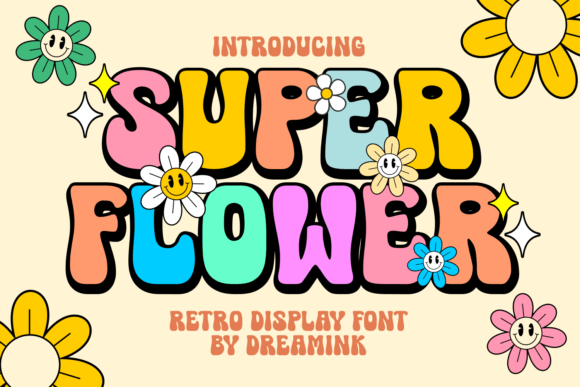
Introducing Super Flower Font, the ultimate choice for those seeking the best fonts for quotes! Created by the renowned Dreamink at 7ntypes, this captivating retro display font will transport you back to the golden era of vintage design. With its charming and playful curves, Super Flower Font exudes a sense of nostalgia and captures the essence of groovy styles from the past.
Super Flower Font stands out from the crowd with its bold lines and unique character. It brings a touch of whimsy to any project, injecting a dash of retro flair that is sure to catch the eye. Whether you're designing posters, crafting unforgettable logos, or creating creative headings, this font will elevate your work to new levels of creativity and originality.
Imagine the impact of Super Flower Font on your next project. Its captivating presence will effortlessly draw attention and leave a lasting impression. The curves and lines of this font create a harmonious blend of elegance and playfulness, making it perfect for adding a touch of personality to your designs.
With Super Flower Font, you can truly express your creativity and bring your visions to life. Let your imagination run wild as you explore the endless possibilities this font offers. From vintage-inspired quotes to bold and striking statements, this font will help you convey your message with style and panache.
Transform your projects into captivating works of art with Super Flower Font. Its versatility knows no bounds, making it suitable for a wide range of applications. Whether you're a graphic designer, a blogger, or a small business owner, this font is a must-have in your creative arsenal.